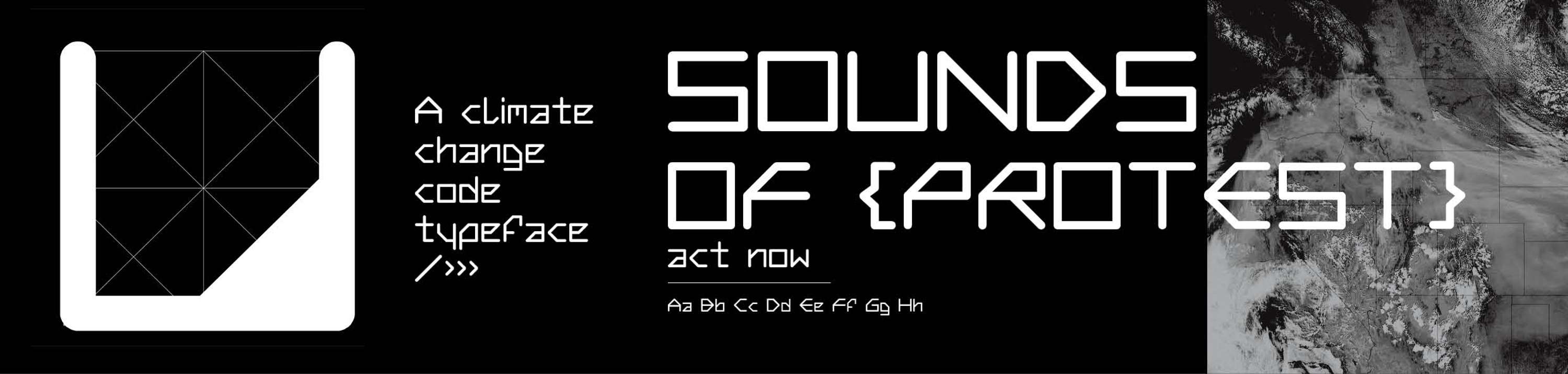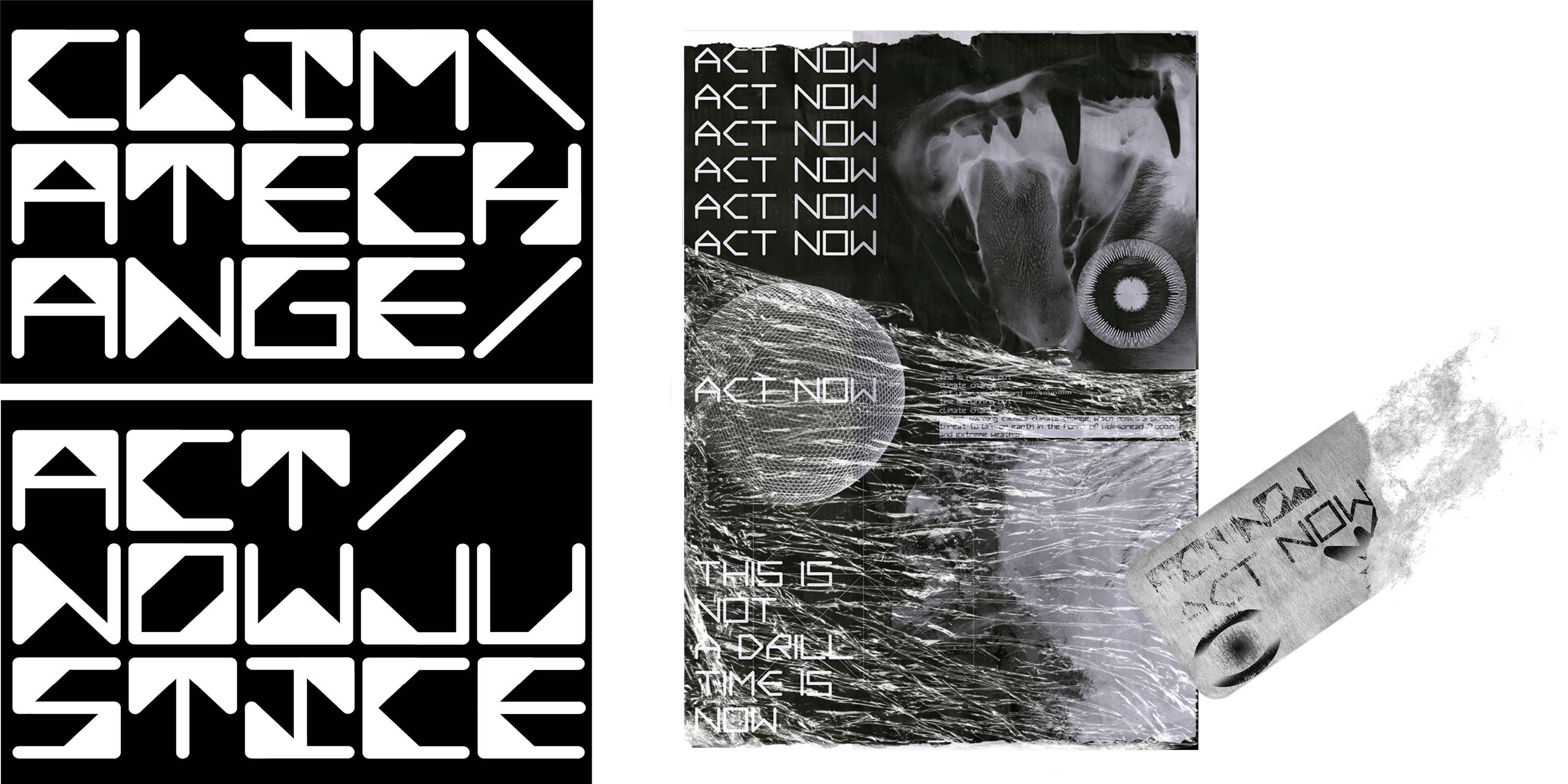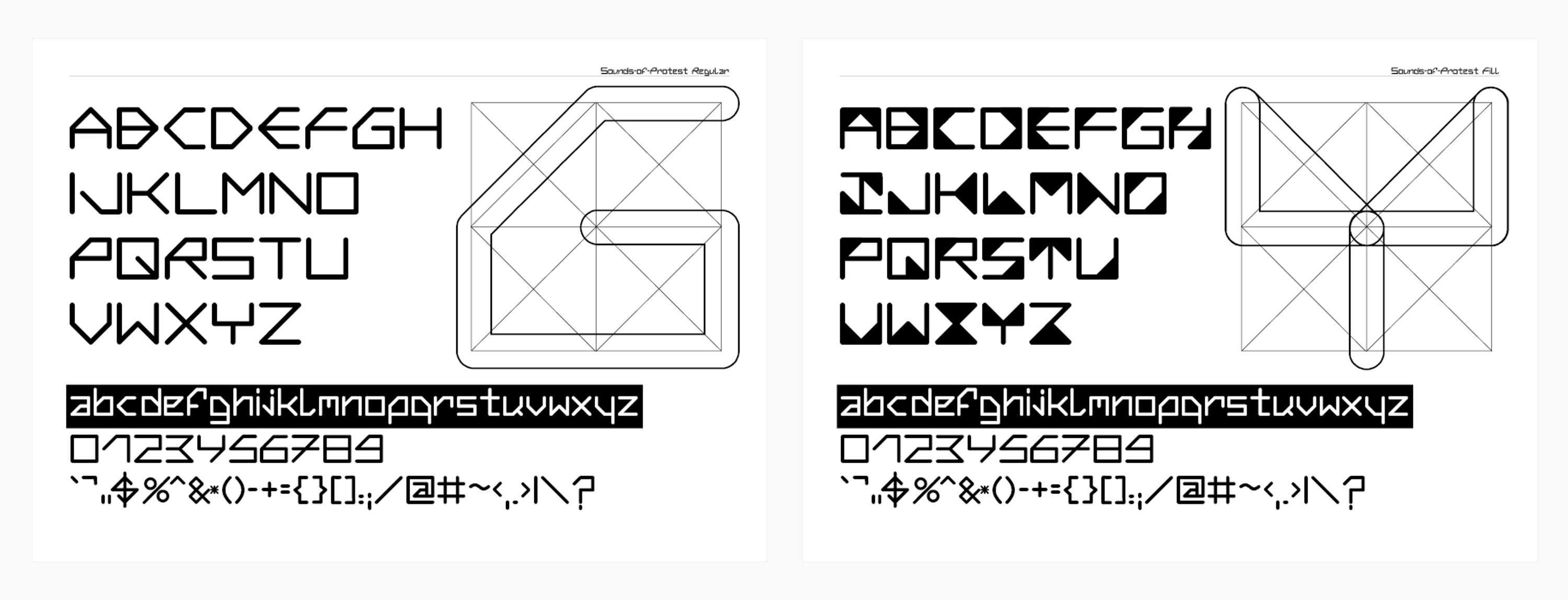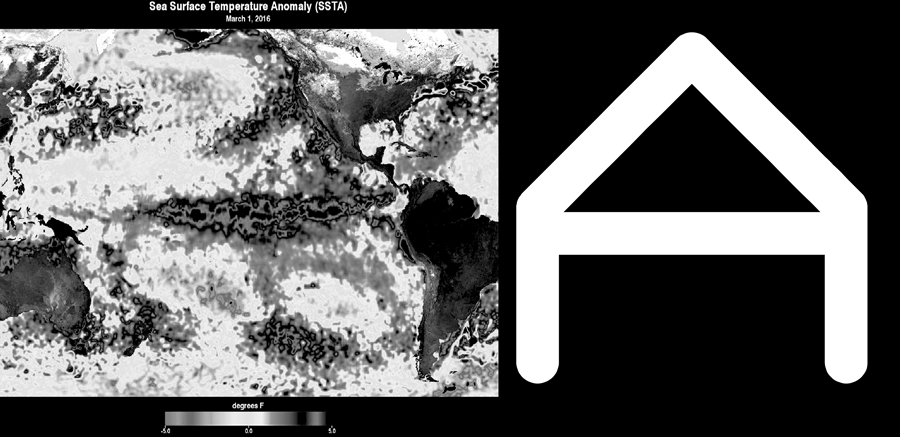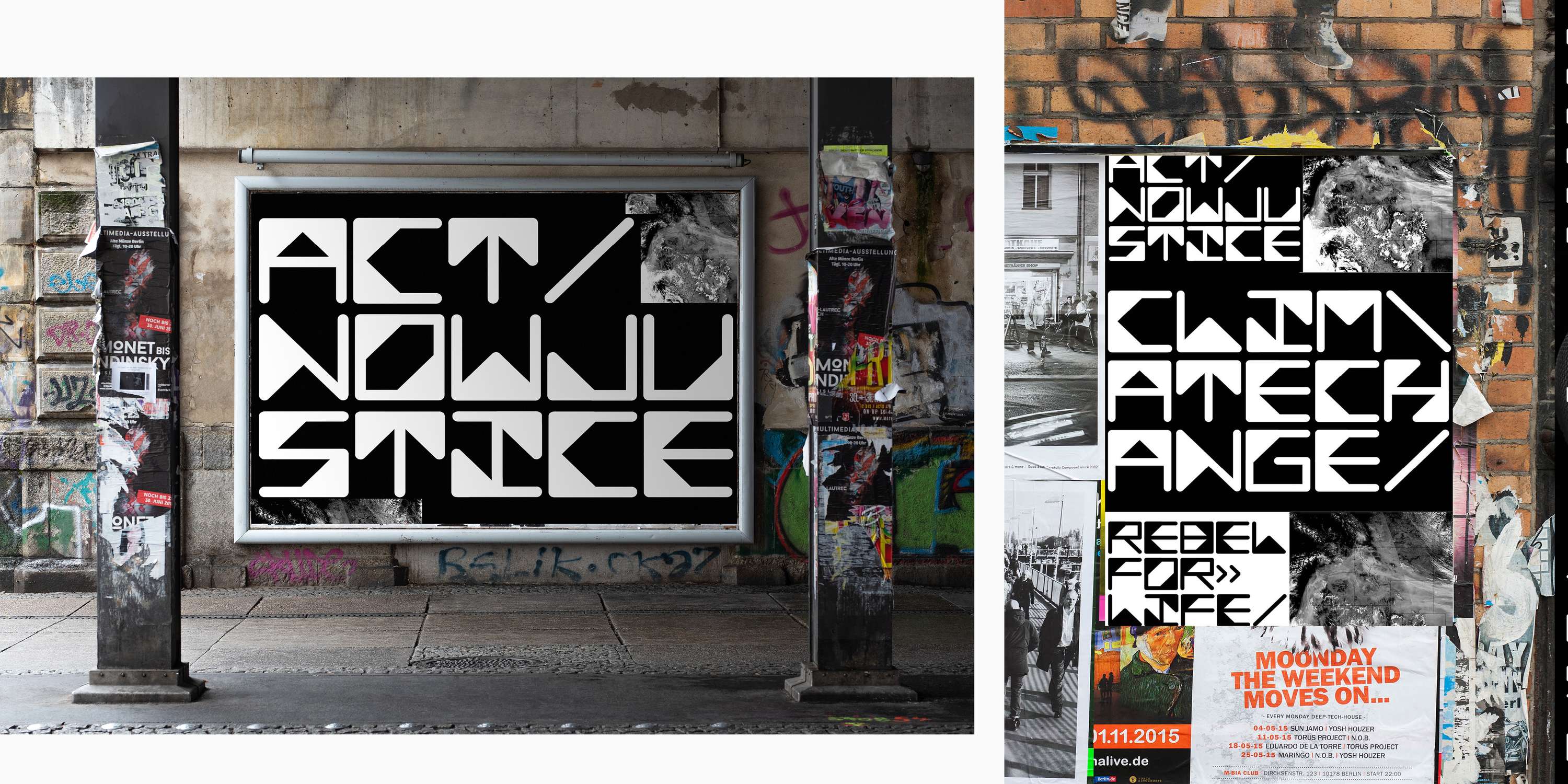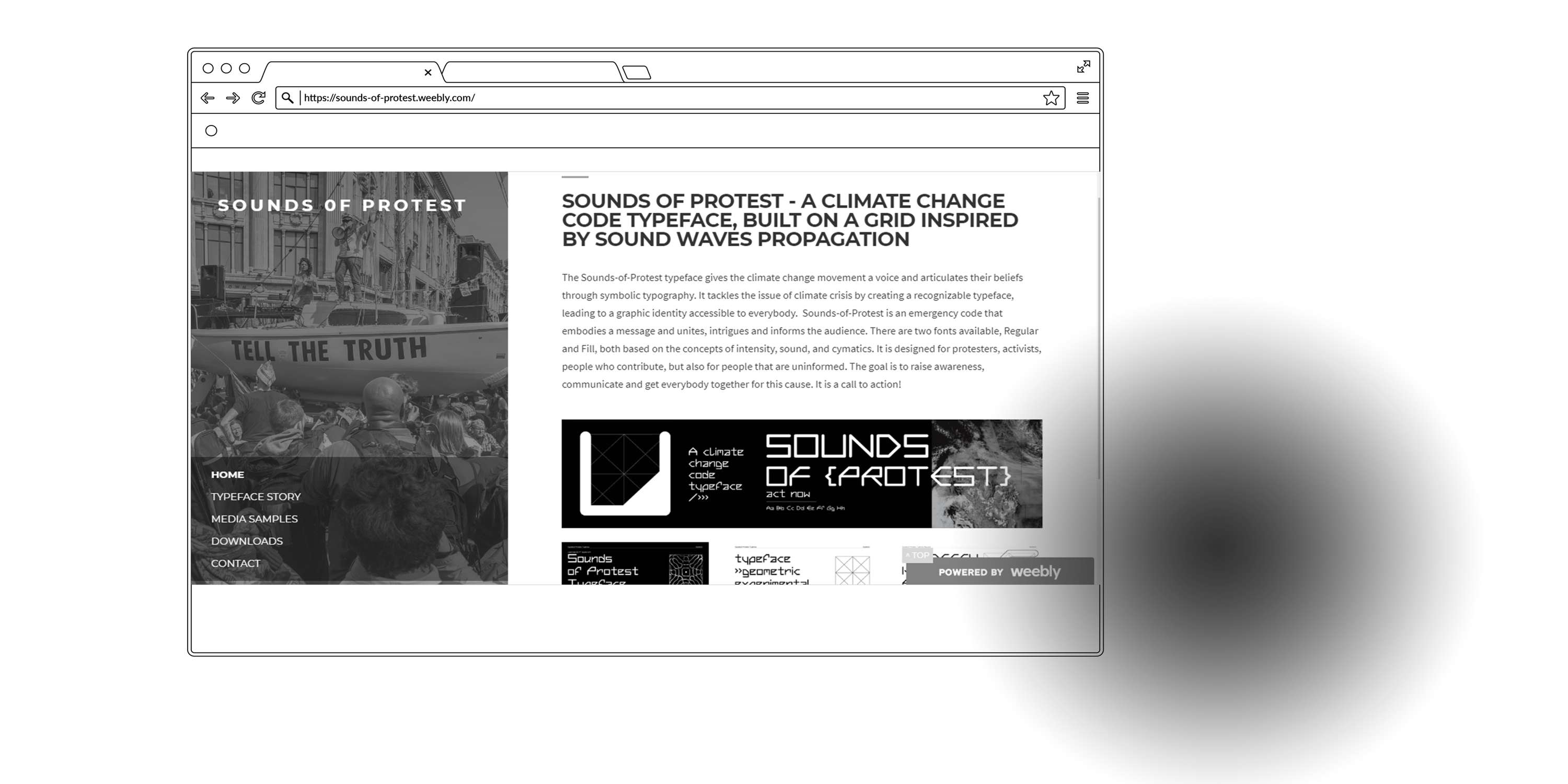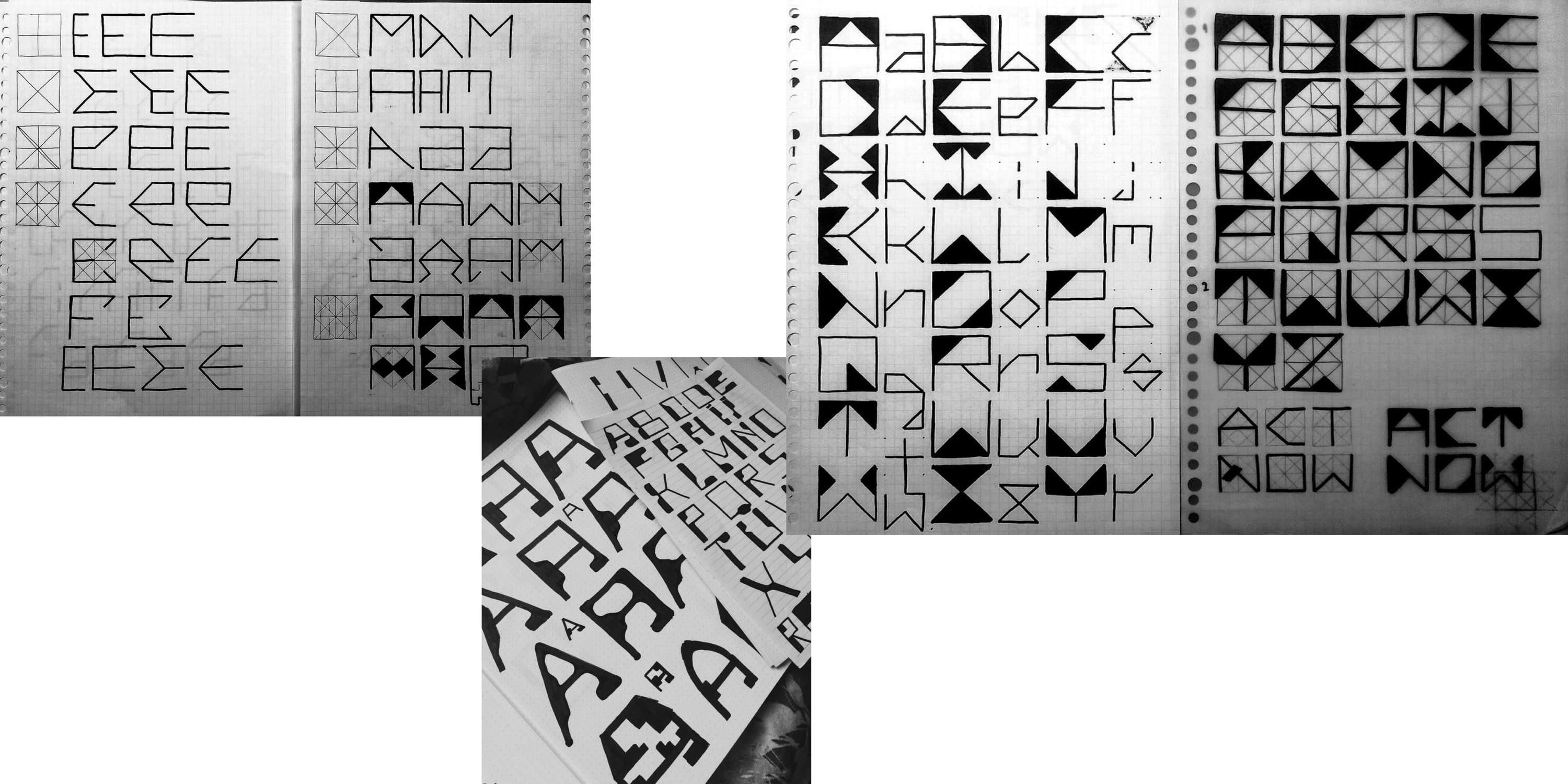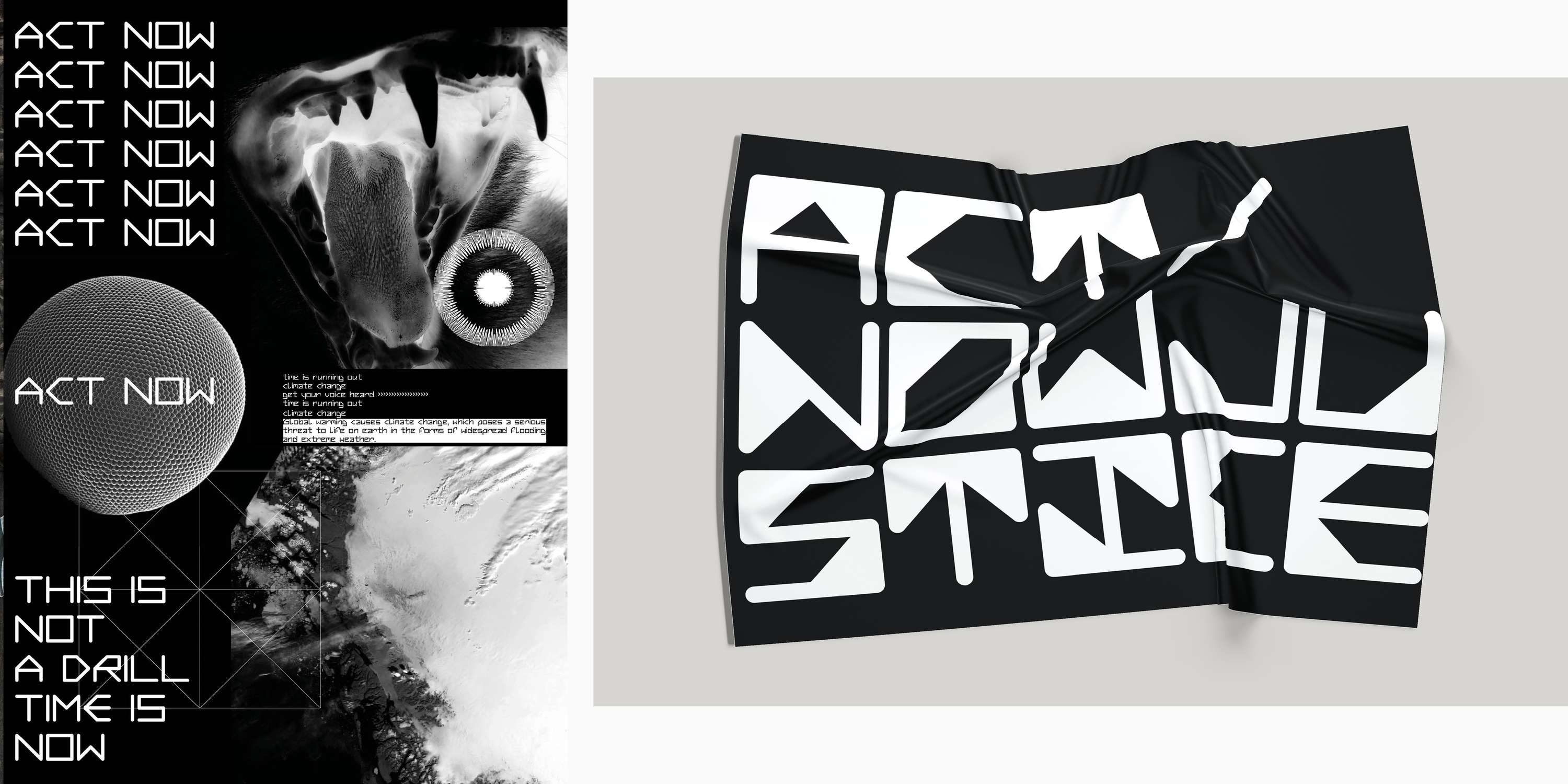
SOUNDS-OF-PROTEST: A climate change code typeface (2019 - 2020)
The Sounds-of-Protest typeface gives the climate change movement a visual voice and articulates their beliefs through symbolic typography. It tackles the issue of the climate crisis by creating a recognizable typeface, leading to a graphic identity accessible to everybody. Sounds-of-Protest is an emergency code that embodies a message and unites, intrigues, and informs an audience. There are two fonts available, Regular and Fill, both based on the concepts of intensity, sound, and cymatics. It is designed for protesters, activists, and engaged individuals. The goal is to raise awareness, communicate, and get everybody together for this cause. It is a call to action!
​FOCUS
The focus of the project is the issue of climate change and how to raise awareness, communicate and get people together for this cause.
IMPACT
The typeface would be valuable and impactful because it connects people for an emergency situation; raises awareness; it is recognizable protest language, easy to share and use trough the platforms and resources available.
RESEARCH
Cymatics is the study of sound and vibration made visible. Sound affects physical materials and has the quality of creating geometric patterns. It has 2 main proprieties: frequency - measured in Hertz, and Intensity. Humans hear sounds between 20 - 20.000 Hz. In our perspective this would translate as a metaphor for protest - Wanting to get your voice heard but not being heard - the limit between noise and silence, between peace and chaos.
DESIGN
The grid of the typeface is based and developed on the patterns of sound, cymatics. Sound generates from the simplest to the most complicated cymatic patterns based on the frequency and intensity.
• low - simple pattern
• high - complex pattern
We started from the most simple pattern and 'increased' the intensity/complexity of the grid, therefore, type imitates sound.​